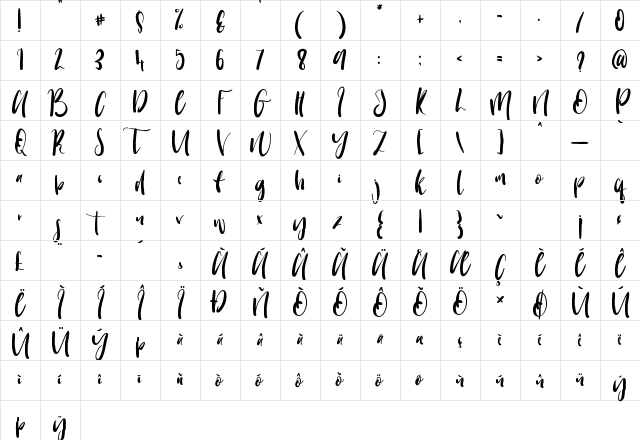
Warrenson Bold Free Font
Warrenson Bold
Design Context for Warrenson
Warrenson is a composed and adaptable typeface that performs quietly and consistently across a wide range of design contexts. Its bold stroke weight gives it real presence on the page.